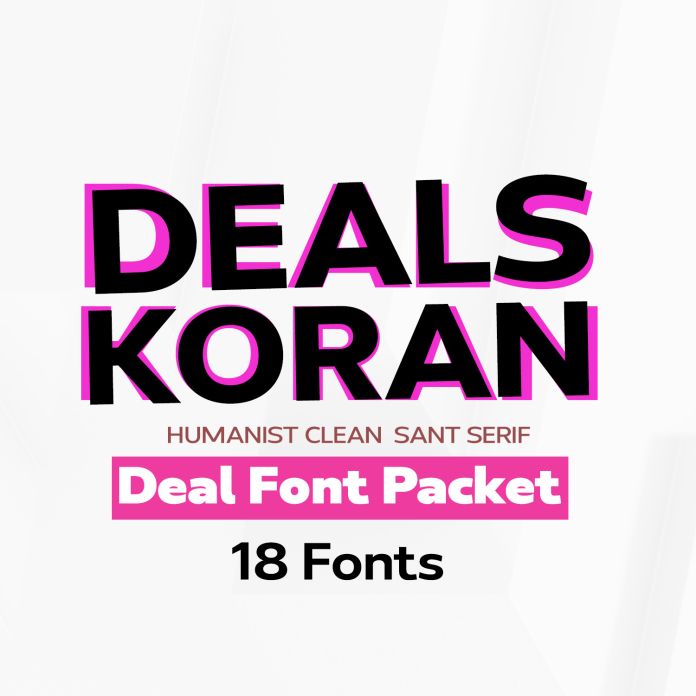
Newspaper Sans is a clean family sans humasnist style that is absolutely perfect for editorial headlines. The complete font family of upright and italic letters is easy for you to use 18 styles in many projects. This font is complete with symbols and multilingual. This font style is bold, bold, and sleek, making it perfect for editorial, web, posters, t-shirts, and magazine covers. . etc
Uppercase Letters, Numbers, Punctuation & Symbols.
Multilingual Support
Newspaper sans exudes character but is still useful thanks to its restrained geometric styling and modern construction.